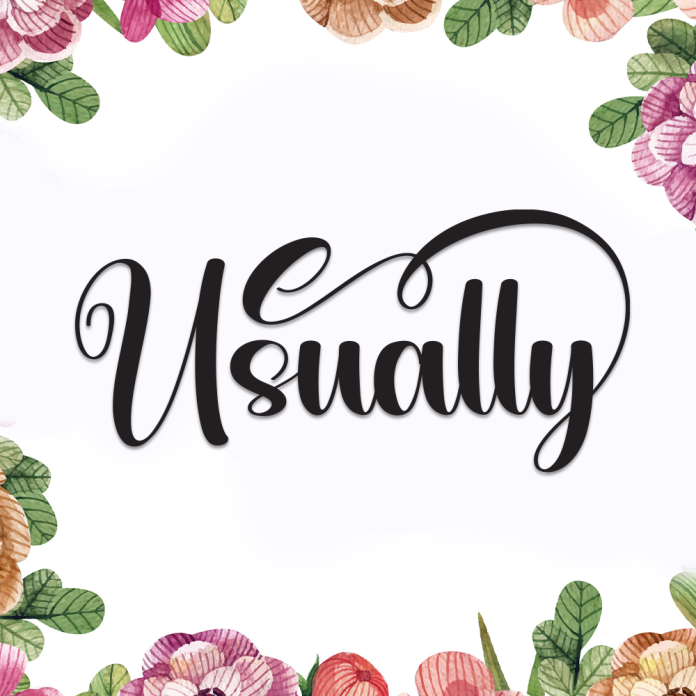
Usually is a relaxed and charming handwriting font that captures the natural flow of pen on paper. With its playful curves and friendly vibe, this font is perfect for personal notes, invitations, journals, branding, and lifestyle-themed designs.
Whether you're designing for social media, a blog, or a creative project, Usually adds a personal and heartwarming touch.
Casual, handwritten style with natural strokes
Perfect for greeting cards, planners, quotes, and logos
Give your designs an authentic and approachable feel with Usually.